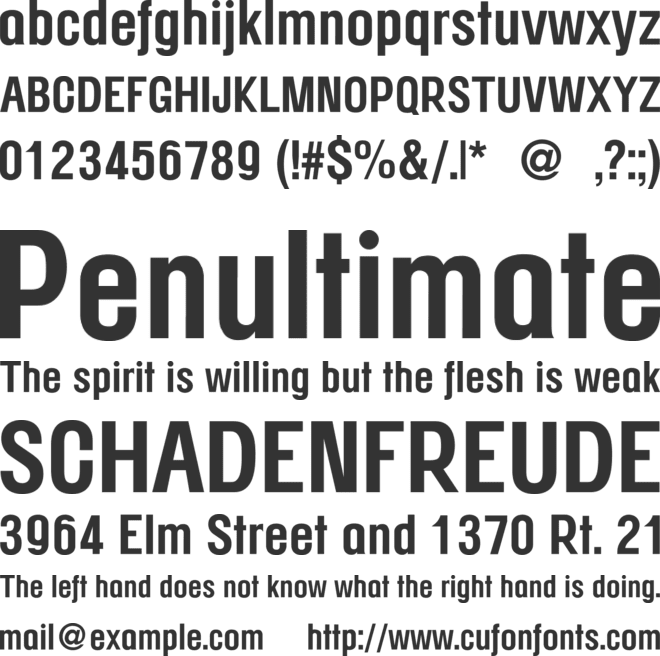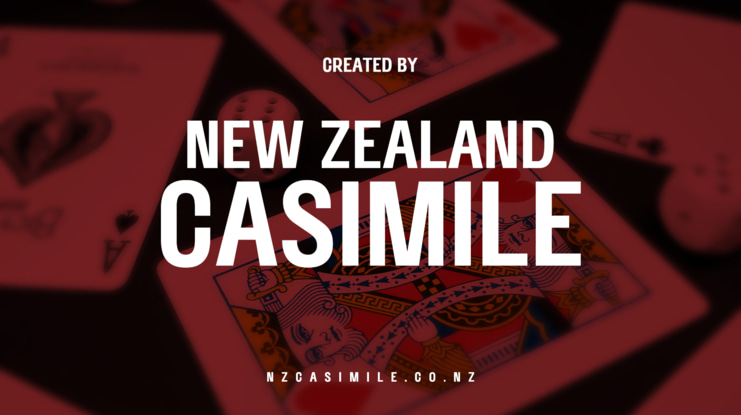
NZCasimile Font
NZCasimile Font is perfect for creating eye-catching headlines and elegant logos that will make your brand stand out from the rest despite the font is Basic. The NZCasimile Font produced by NZCasimile team for the https://nzcasimile.co.nz/ website is easy to read and has a strong presence, making it ideal for use in marketing materials, posters, flyers, and more. Whether you’re a professional graphic designer or someone looking to add a touch of style to their personal project, the NZCasimile Font is the perfect choice.